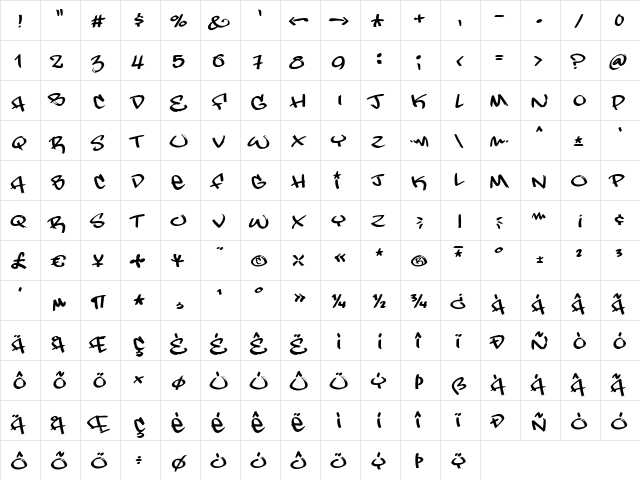
TagBoyHardcore Regular
Design Context for TagBoyHardcore Typeface
TagBoyHardcore is a composed and adaptable typeface that performs quietly and consistently across a wide range of design contexts.